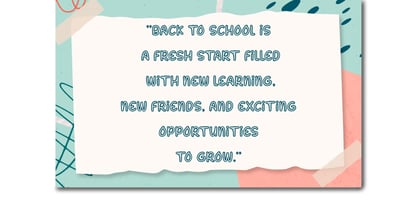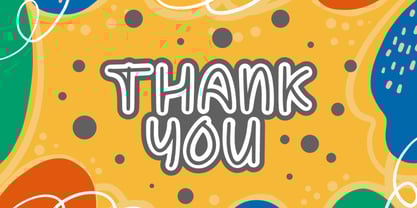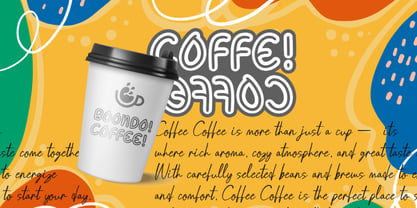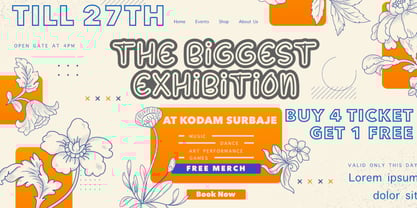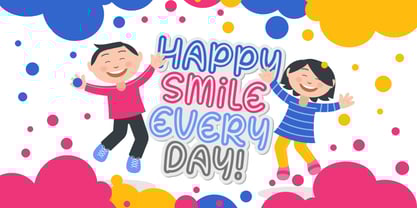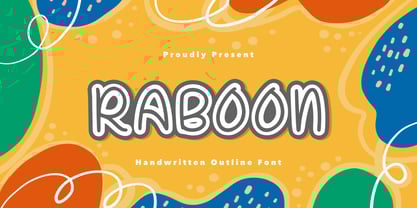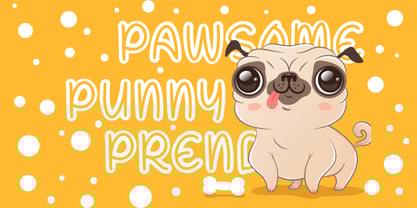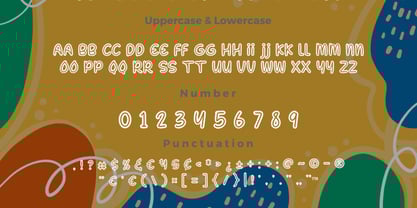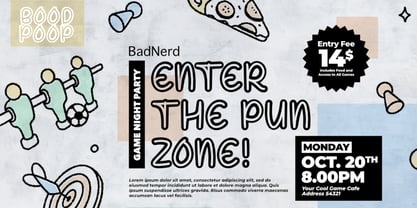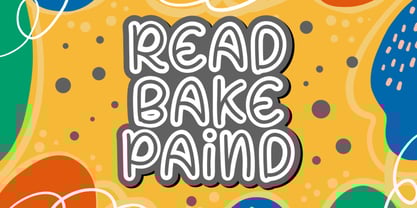
Raboon
by Bayuktx
The Raboon Font Family was designed by Bayu Aji Fais Mursid and published by Bayuktx. Raboon contains 1 styles. More about this family
Raboon a Handwritten Outline Font Raboon is a playful handwritten outline font with a bold and fun style. Its casual strokes and outlined characters make it perfect for cheerful and creative designs. Ideal for kids’ themes, branding, posters, packaging, and social media graphics, Raboon adds a friendly and eye-catching touch to any project. Key Features : * Uppercase & Lowercase Letters * Numerals & Punctuation * Multilingual Support * PUA Encoded & OpenType Features With Raboon a Handwritten Outline Font, your designs will radiate a joyful, friendly, and creative atmosphere that makes every message more engaging and memorable.
Designers: Bayu Aji Fais Mursid
Foundry: Bayuktx